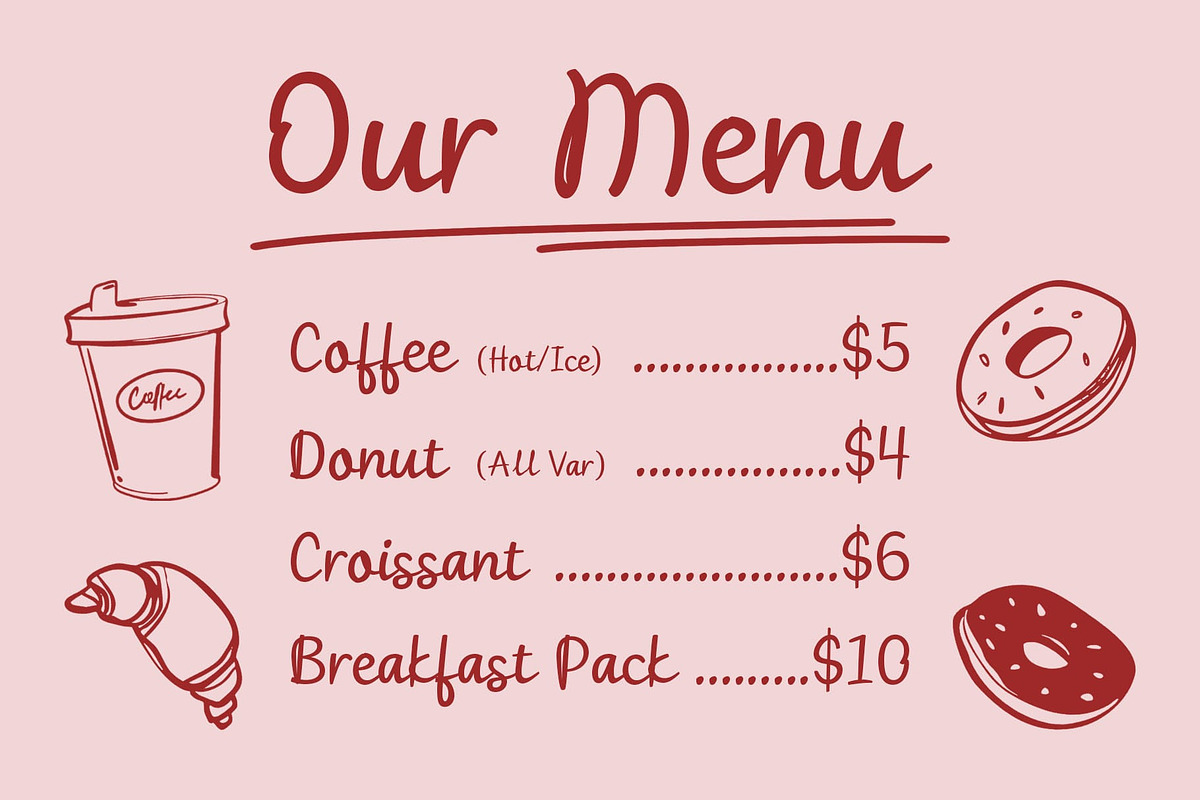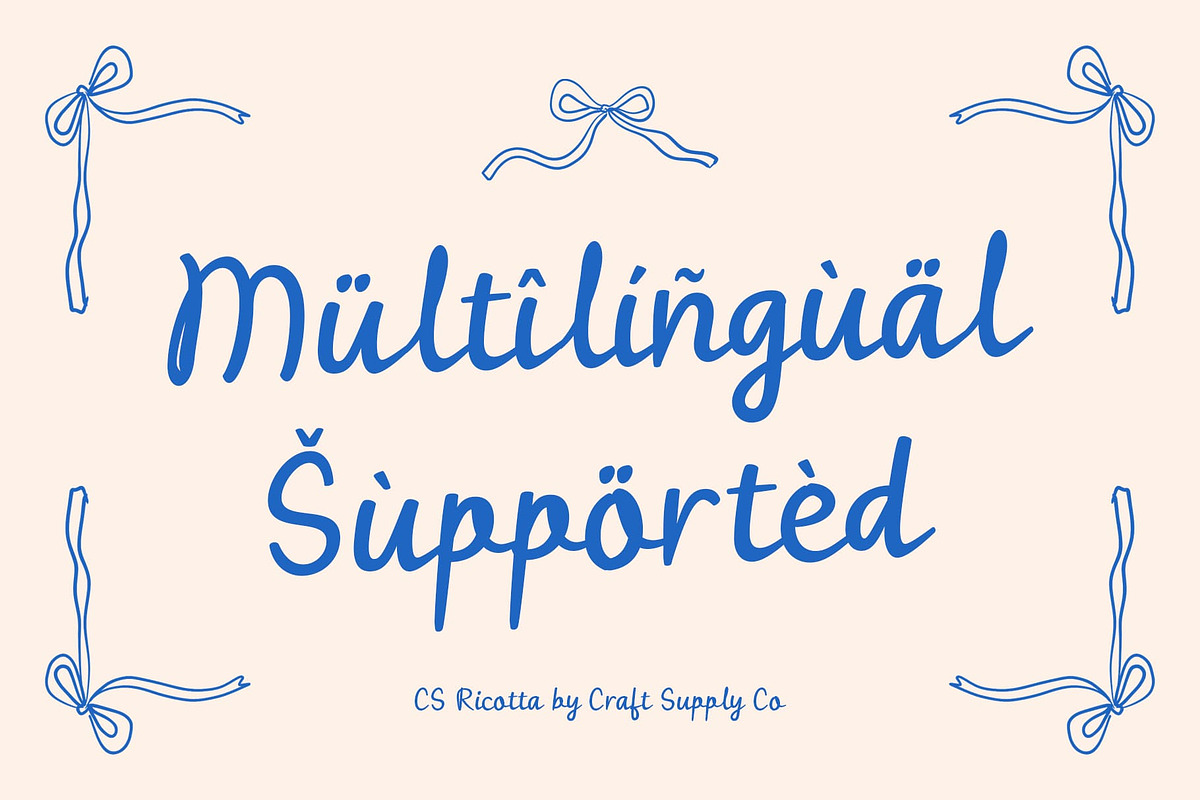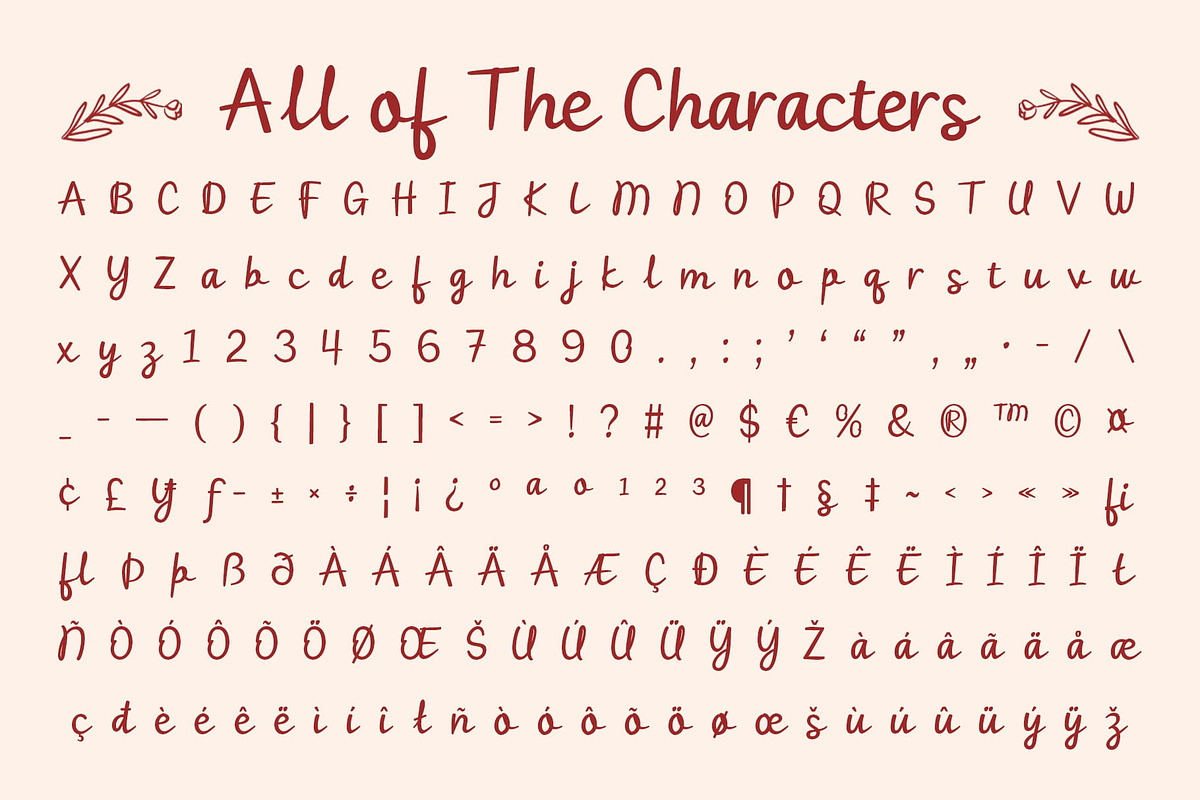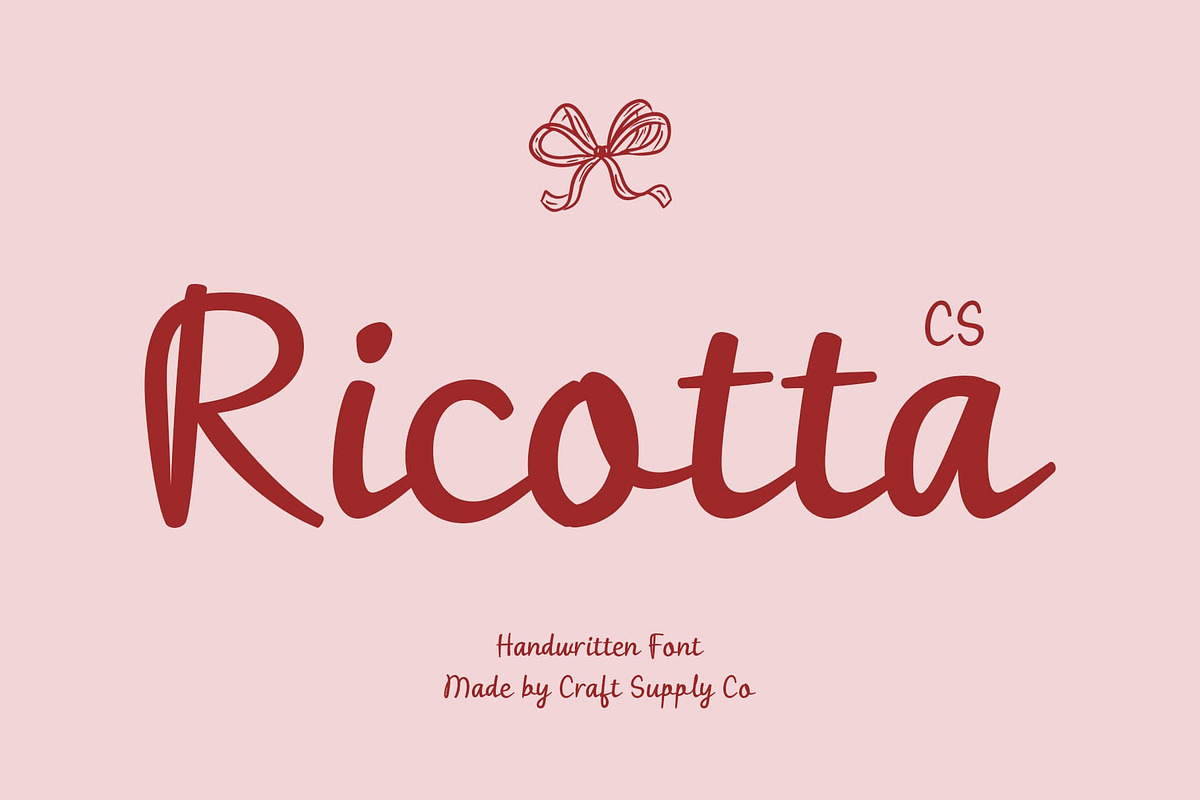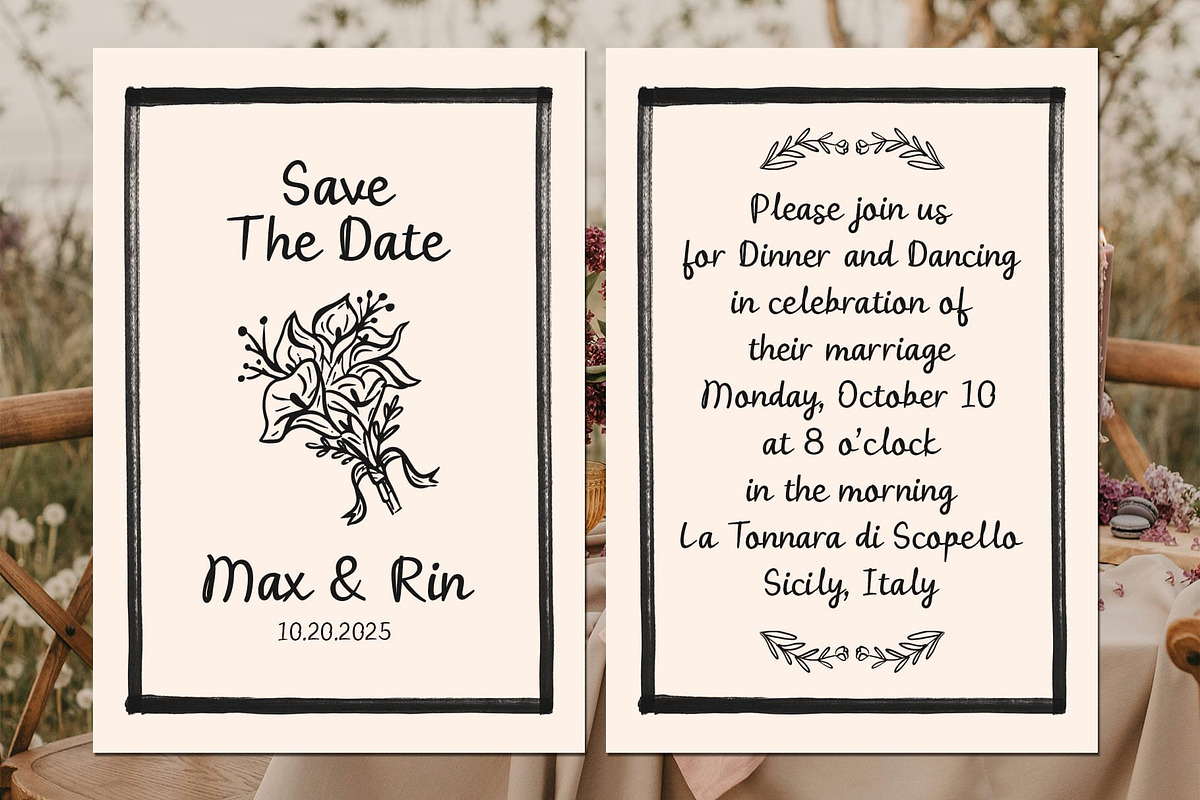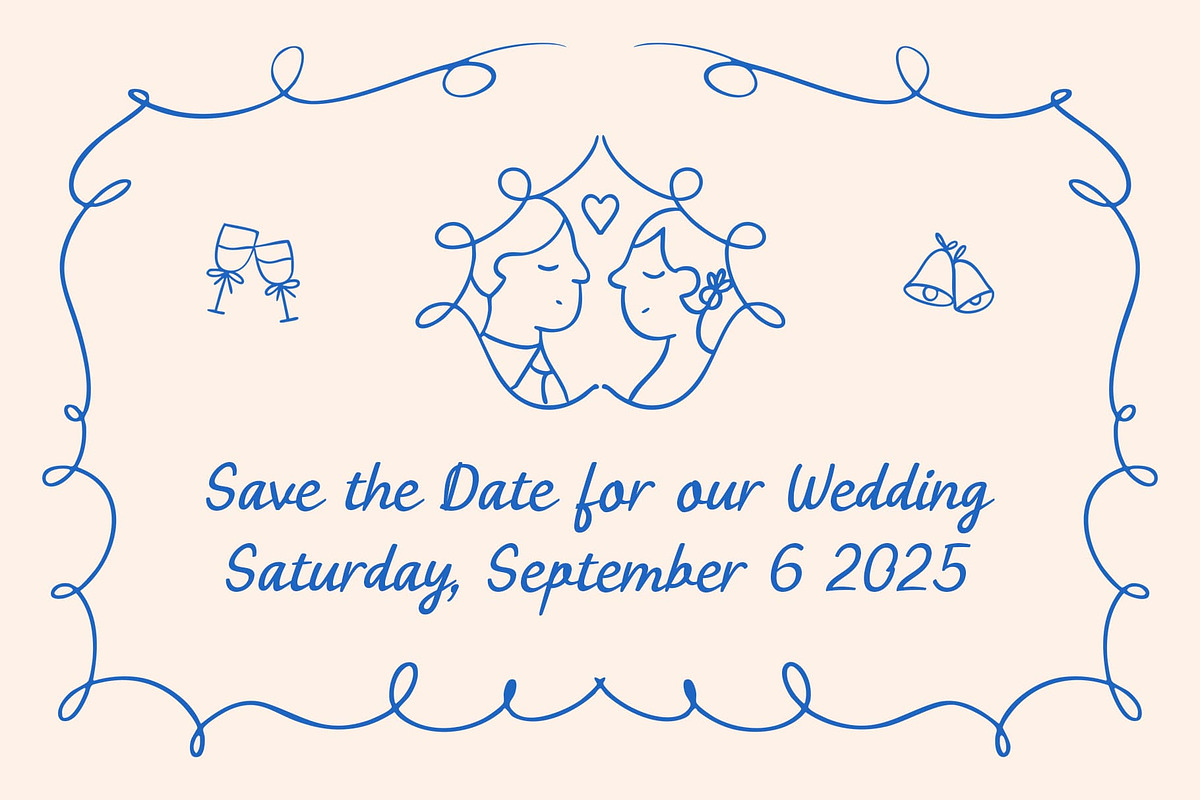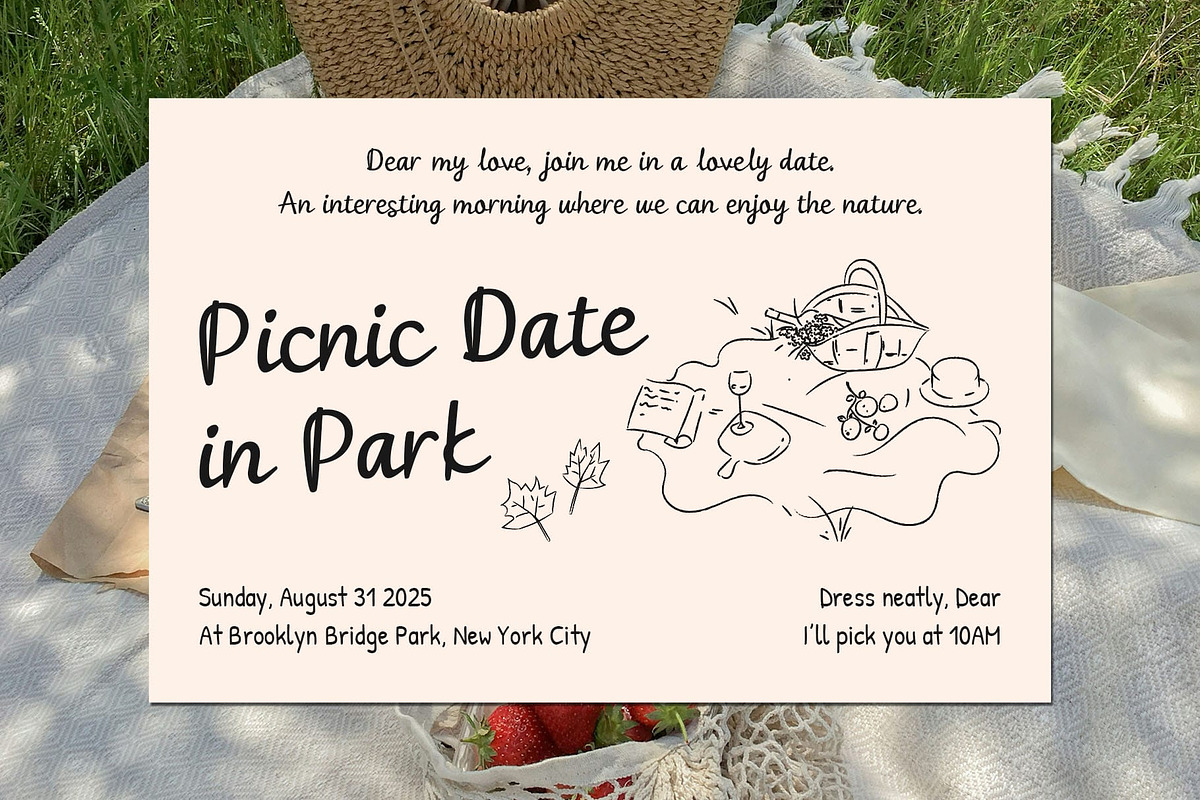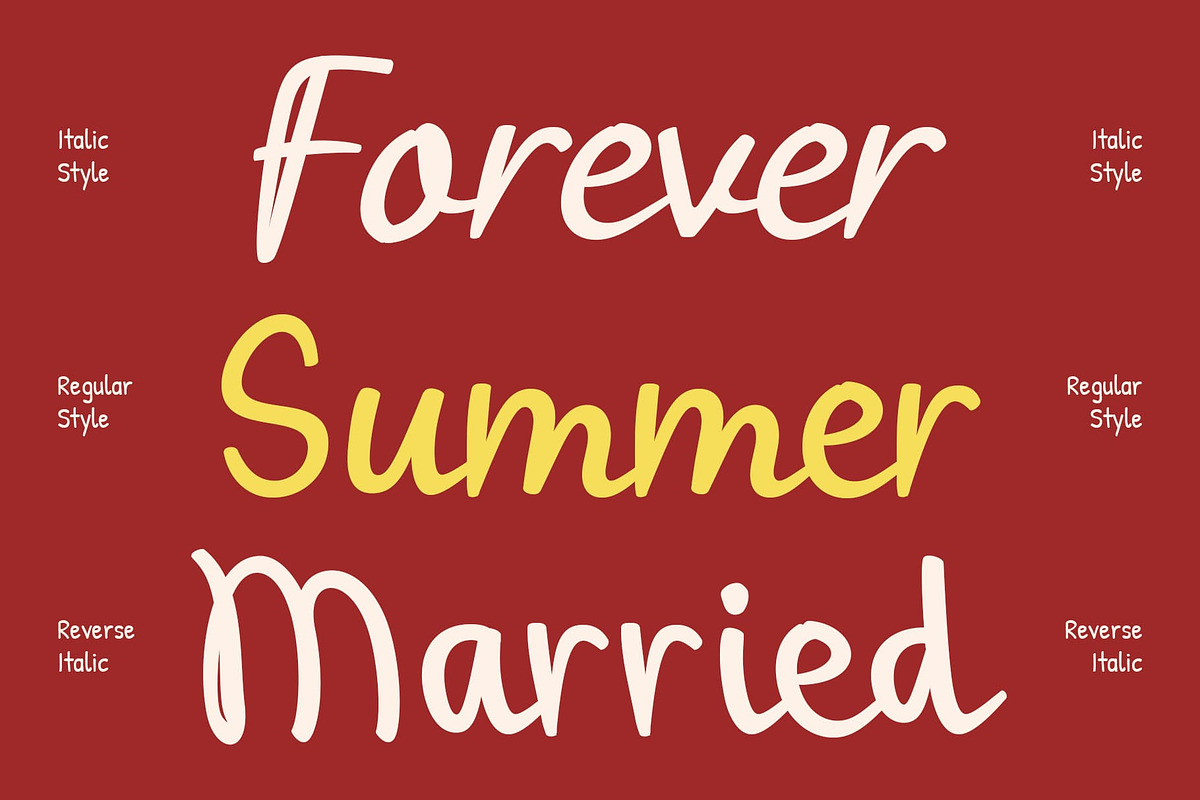
CS Ricotta- Handwritten Script Font
CS Ricotta – Handwritten Script Font with Romantic Curves
Elegant and Flowing Design CS Ricotta is a flowing, hand-drawn script font that radiates charm and sophistication. Its graceful curves and stylish strokes capture the essence of handwriting while maintaining a refined and polished look. This balance of organic flow and artistic detail gives the font a timeless appeal, perfect for designs that need a touch of elegance.
Romantic and Feminine Feel With its sweet, romantic character, CS Ricotta brings warmth and intimacy to every project. The delicate movement of each letter conveys emotion and personality, making it especially suitable for feminine design themes. Whether used subtly or boldly, it instantly adds a sense of beauty and charm.
Perfect for Weddings, Fashion, and Branding CS Ricotta is the ideal choice for wedding invitations, save-the-dates, and greeting cards, where romance and sophistication are key. It also shines in fashion branding, luxury logos, and elegant editorial layouts. From personal stationery to professional design, this font ensures a stylish and memorable impression.
Unique Design with Lasting Character Beyond its elegance, CS Ricotta has a distinctive hand-drawn quality that makes it stand out from ordinary script fonts. Its individuality ensures that your designs remain unique, expressive, and true to your creative vision.
- CS Ricotta Regular
- CS Ricotta Italic
- CS Ricotta Reverse Italic